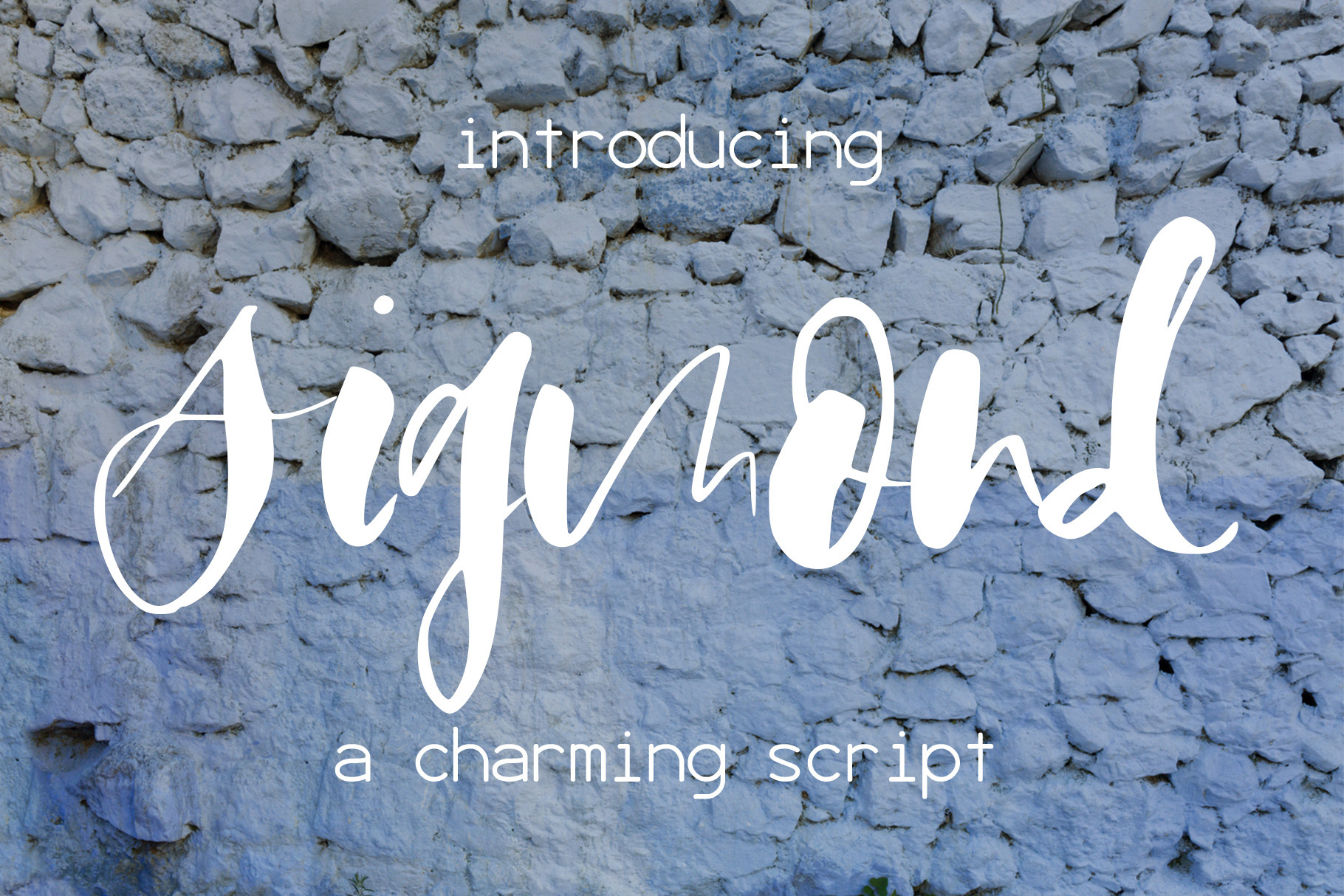
Sigmond Font
Introducing Sigmond, a charming handwritten script.💗 Perfect for any graphic and logo designs, wedding and birthday invitations.
Sigmond font contains uppercase & lowercase characters, numbers and punctuations.